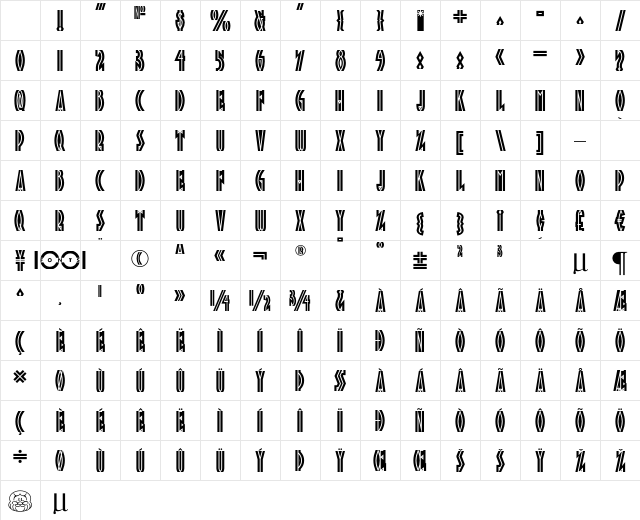
Complete Tropicana NF Regular glyph index. Displaying only characters natively supported by Tropicana NF Regular font.
Tropicana NF is a composed and adaptable typeface that performs quietly and consistently across a wide range of design contexts.